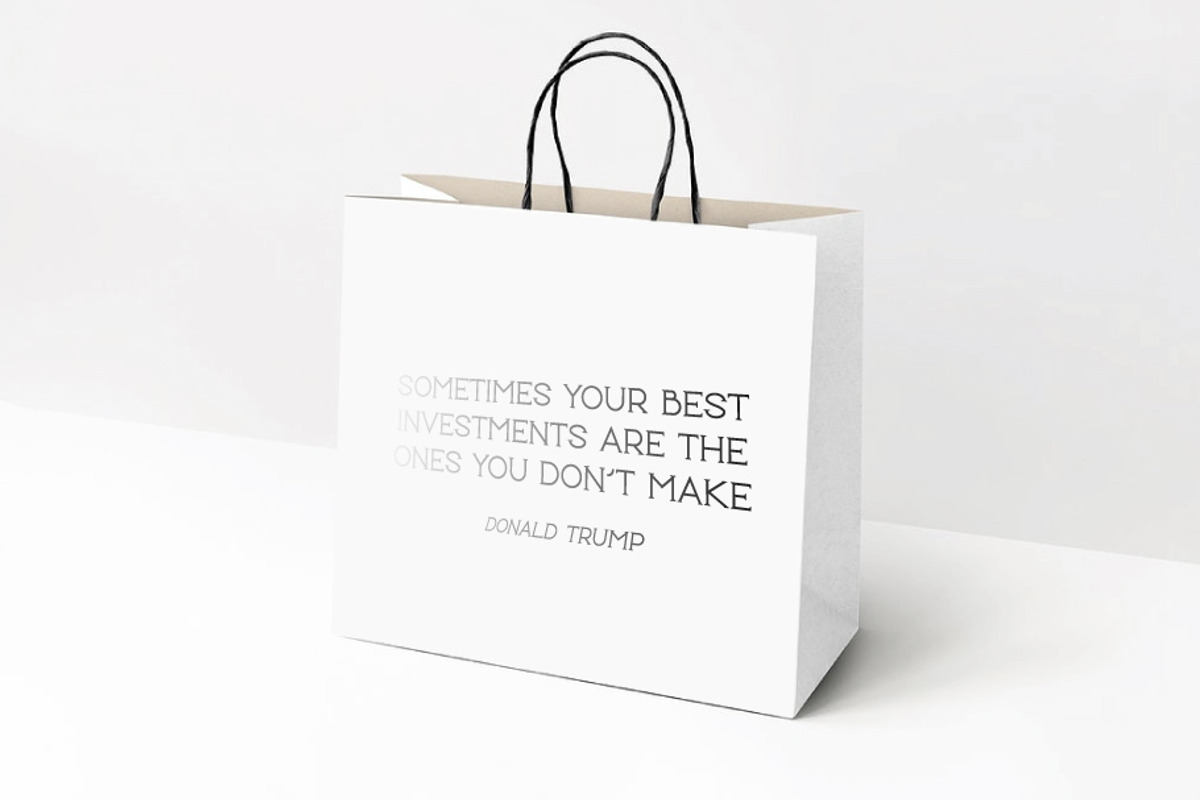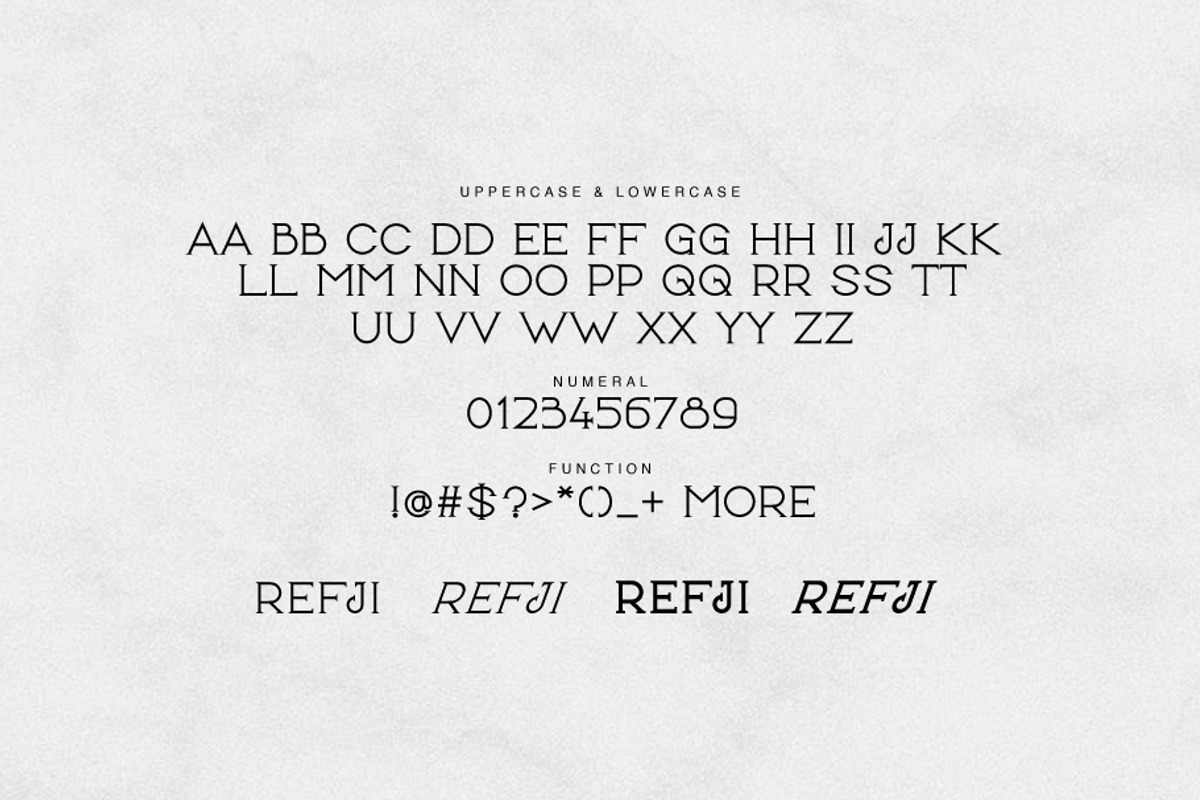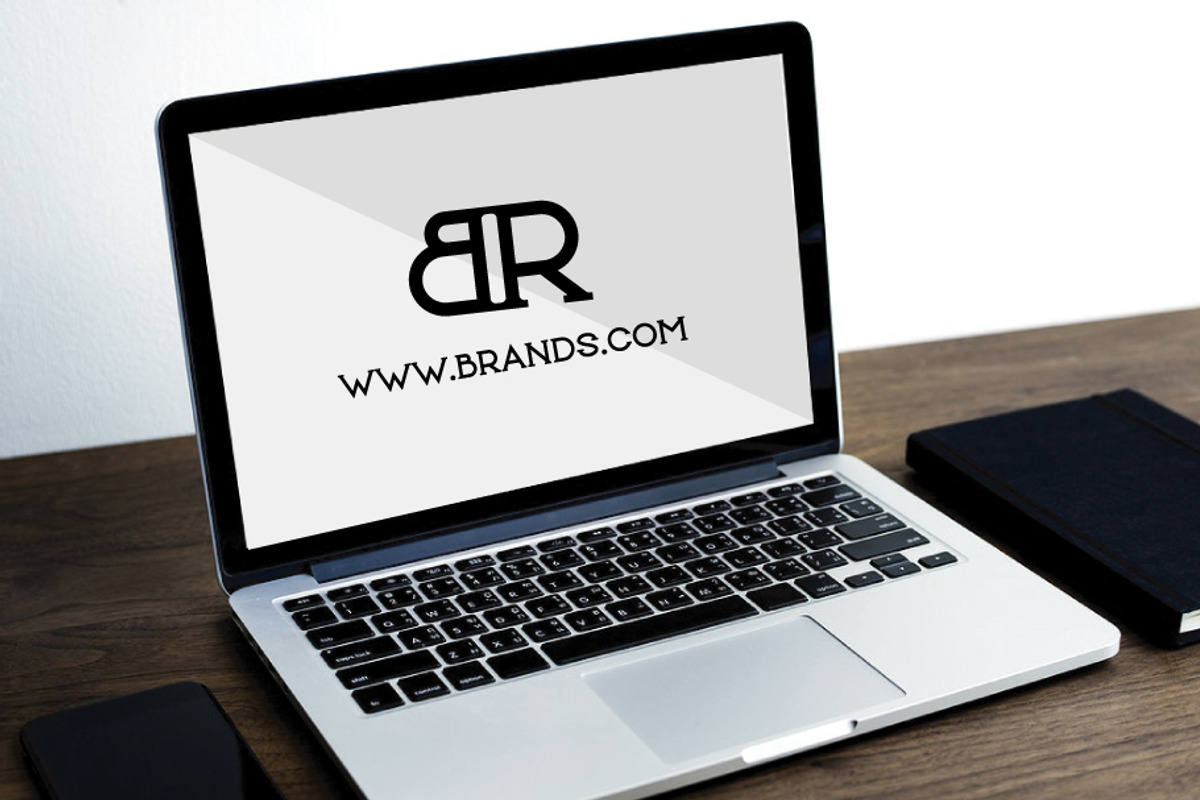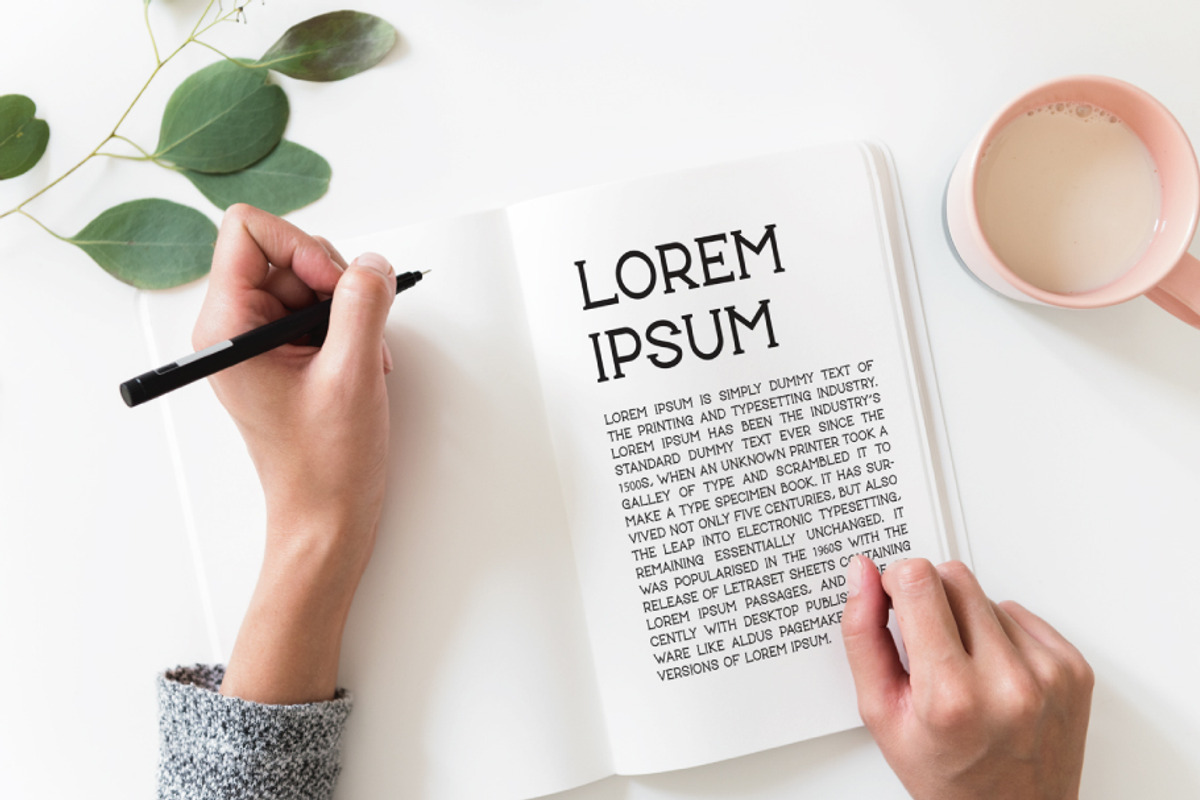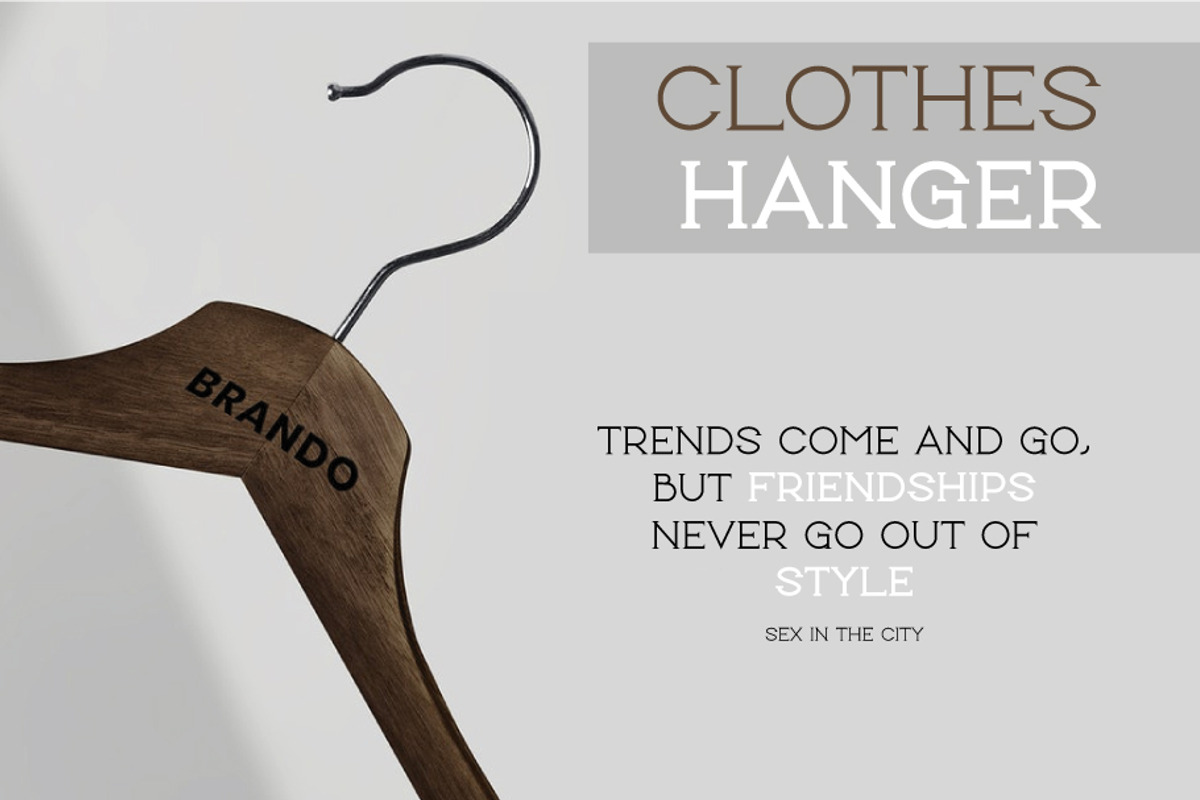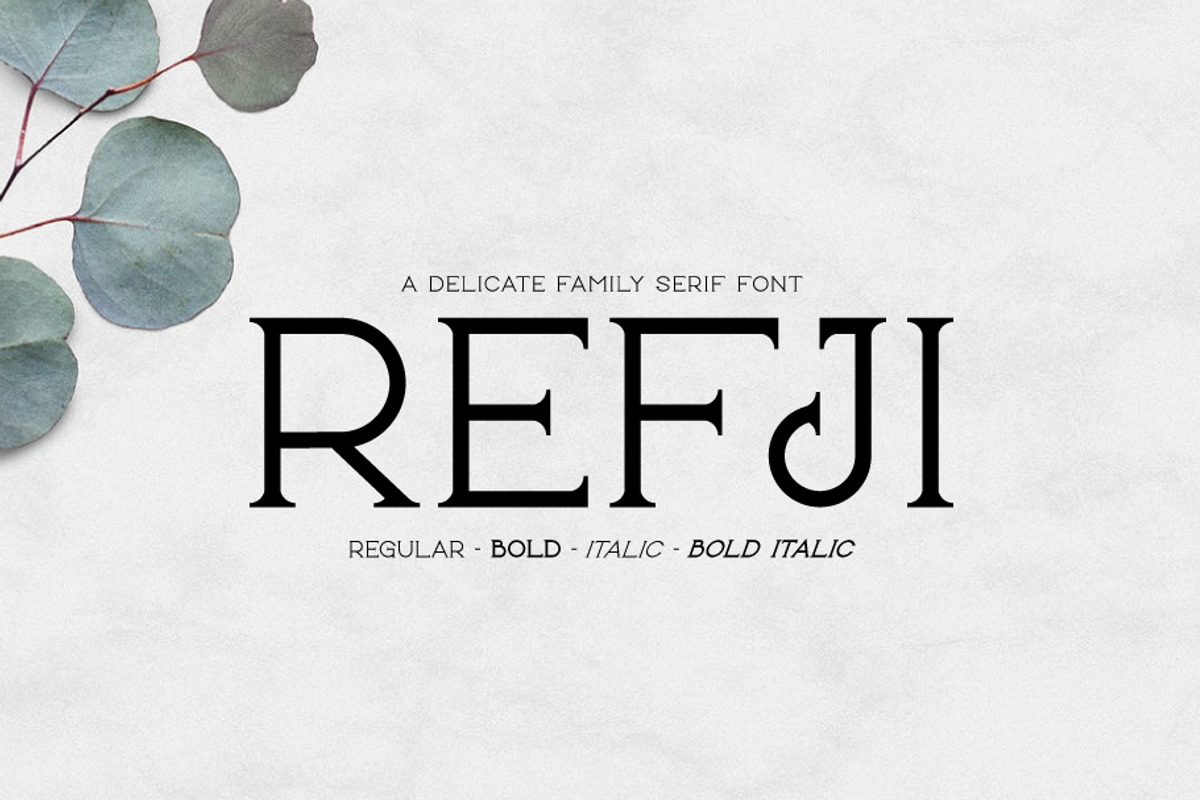
Refji | A Delicate Family Serif Font
Refji - An Elegant Serif and minimalist character! it's perfect for logos, name card, magazine layouts, invitations, headers, or even large-scale artwork. If you are still unsure, feel free to drop me a line, I'll try to get to you as soon as possible :) Now go ahead and Get designing already! Thank you